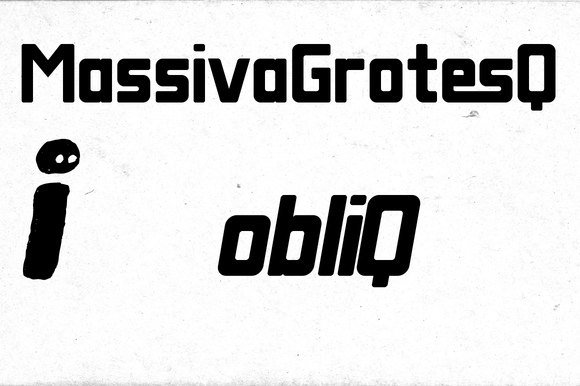
Dive into the world of typography with the captivating Massiva Grotesq Obliq font, a masterpiece crafted by Dawnland. This sans-serif wonder holds the power to transform your designs, infusing them with a touch of elegance and sophistication.
Massiva Grotesq Obliq is a font that dances on the page, its oblique angles adding a touch of intrigue and dynamism to your creations. Its clean lines and precise curves exude a sense of modernity, making it the perfect choice for headlines, branding, and web design.
Whether you're a seasoned designer or just starting your typographic journey, Massiva Grotesq Obliq is a must-have in your digital toolbox. Its versatility knows no bounds, allowing you to express your creativity in countless ways. From eye-catching posters to sleek brochures, from captivating social media posts to unforgettable logos, this font is your gateway to typographic excellence.
Imagine your words leaping off the screen, infused with the confidence and charisma that Massiva Grotesq Obliq exudes. Its bold strokes and subtle nuances command attention, inviting your audience to delve deeper into your message. With this font, your designs will not merely convey information, they will captivate hearts and spark imaginations.
But Massiva Grotesq Obliq is more than just a pretty face. Its underlying structure is meticulously crafted, ensuring readability and clarity across all platforms. Whether you're designing for print or digital, this font will ensure that your message shines through with crystal clarity.
Don't settle for ordinary fonts that blend into the background. Embrace the power of Massiva Grotesq Obliq and watch your designs soar to new heights. Let this typographic masterpiece ignite your creativity and leave an unforgettable mark on your audience.